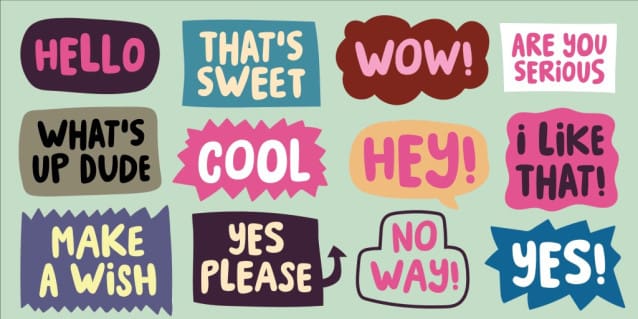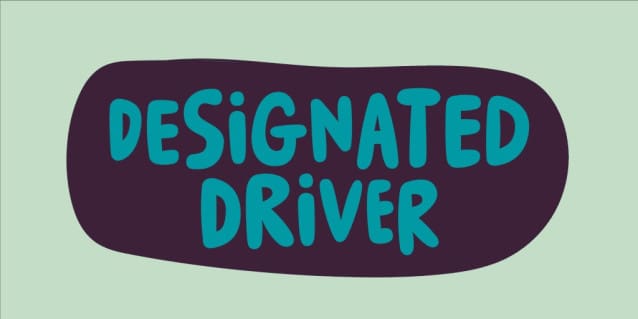
Designated Driver Font
Designated Driver Font, is a chunky, comic, and cartoon display font. With its neat and joyful personality, this font will enhance any project you wish to create!